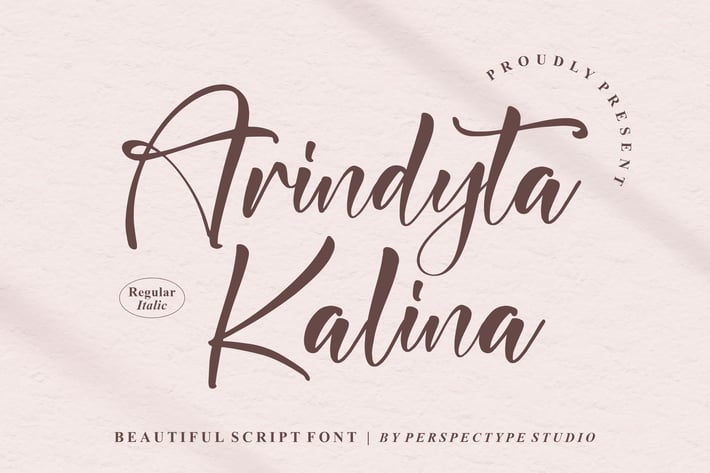
Arindyta Kalina Script Font
Arindyta Kalina is a graceful script font with flowing strokes and soft contrast. Designed for modern branding and romantic visuals, it includes smooth curves, expressive alternates, and polished letterforms for an elegant, handwritten finish.
+ Uppercase & lowercase
+ Alternates & ligatures
+ Stylistic sets & swashes
+ Regular & Italic styles
+ Numerals & punctuation
+ Multilingual support
+ Kerning & smooth curves
A graceful signature script that delivers effortless romance and modern elegance in every stroke.